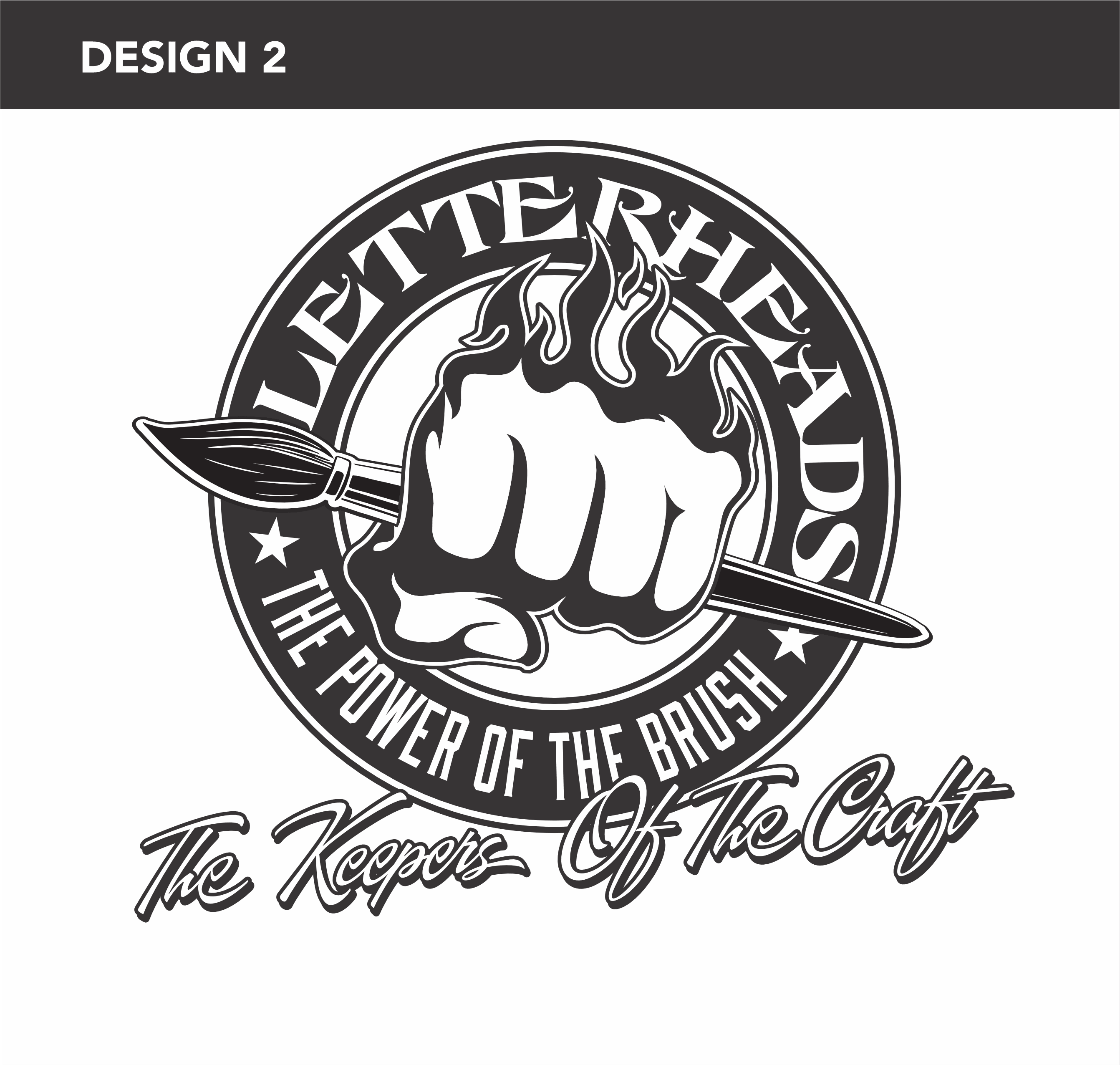
Gilding Workshop 2026 Letterheads
This years gilding workshop is being run by Paul Walters of Identity Signs in Christchurch. Along with 25 plus years of experience, Paul brings a great fun style of teaching.
There are 2 design options for your workshop glass piece design.
DESIGN 1 This design is very intricate and challenging. Suggested for the more experienced brush user and will be a time consuming project to say the least.
DESIGN 2 This is a more simple design option aimed at the those new to brushwork and gilding.